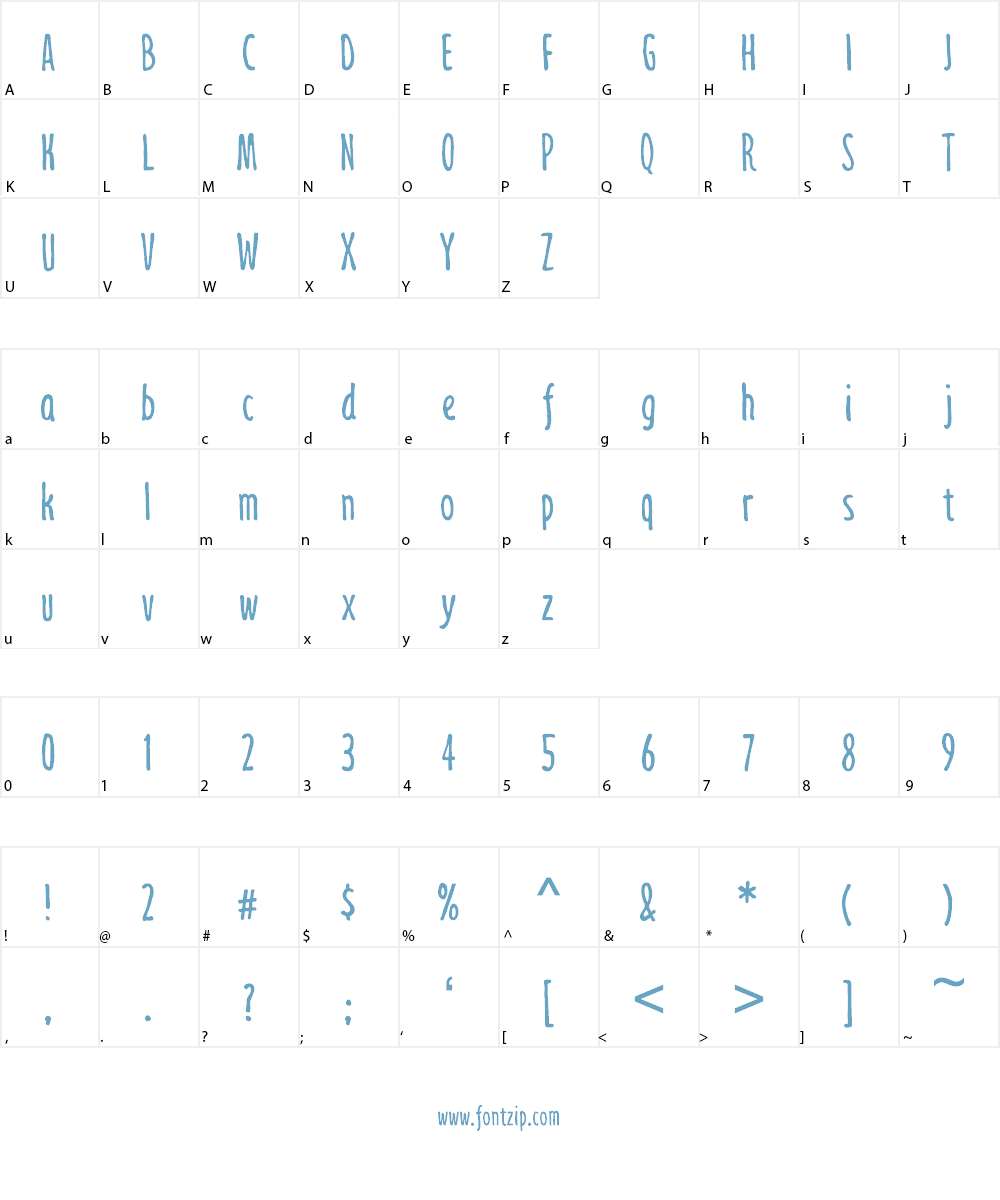
Jollysight Sans is the perfect choice for stylish informal invitations, signs, notes etc. Just have fun with it!
The font supports a large number of Western European languages. Of course, English, French, German and Spanish, but also Portuguese, Swedish, Danish, Finnish, Dutch, Italian and even Norwegian.